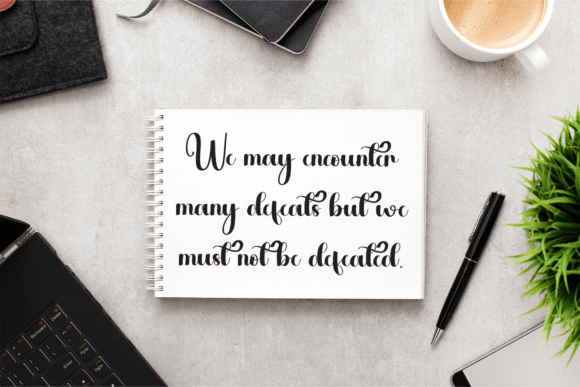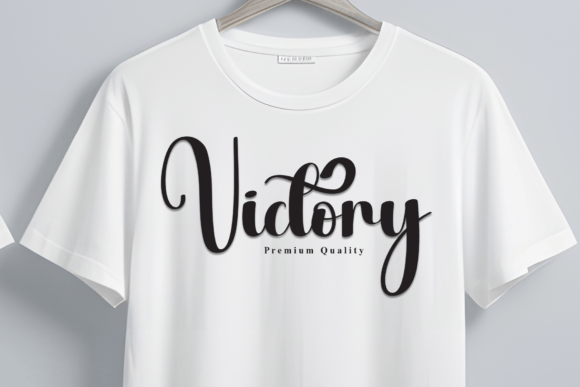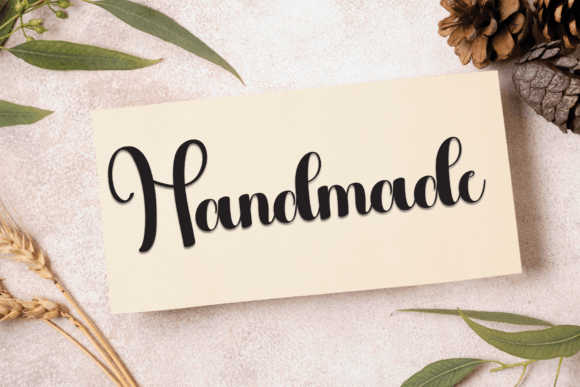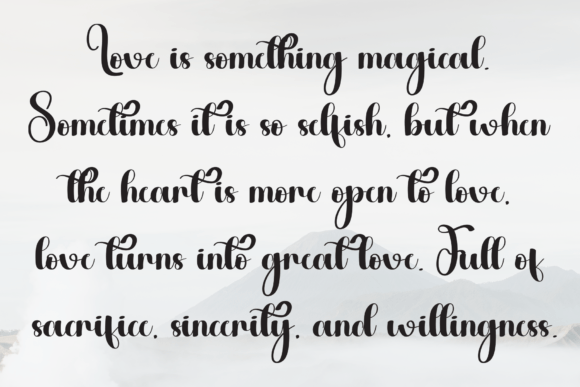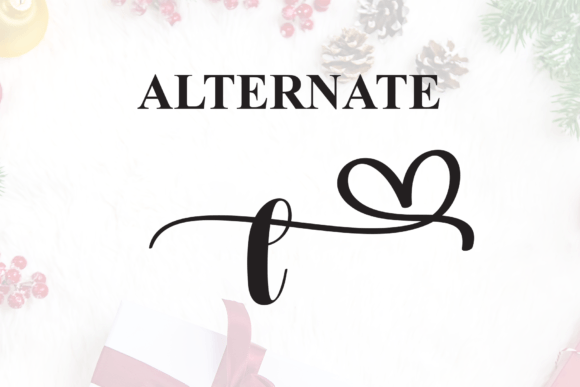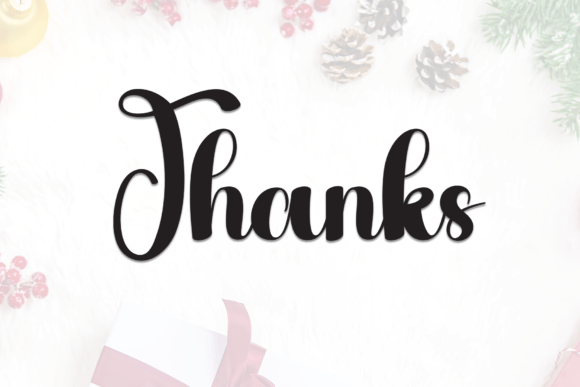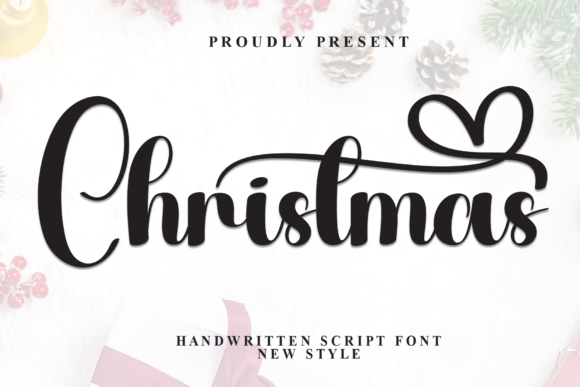
Introducing Christmas Font: A Charming Handwritten Display Font
Are you looking for a font that can add a touch of warmth and friendliness to your design projects? Look no further than Christmas Font, a charming and personable handwritten display font that exudes a sense of sweetness. This delightful font is perfect for crafting wedding invitations, greeting cards, or any other design project that requires a playful and fun vibe.
A Perfect Blend of Cute and Enjoyable
Christmas Font is designed to bring a unique touch to any layout. Its cute and enjoyable nature makes it an excellent choice for designers and crafters who want to convey warmth and friendliness in their design. Whether you’re creating a wedding invitation, a greeting card, or a social media post, this font is sure to make your design stand out.
Key Features of Christmas Font
- Handwritten Display Font: Christmas Font is a handwritten display font that is designed to add a personal touch to your design projects.
- Playful and Fun Vibe: This font has a playful and fun vibe that makes it perfect for crafting wedding invitations, greeting cards, and other design projects.
- Cute and Enjoyable Nature: Christmas Font has a cute and enjoyable nature that effortlessly adds a unique touch to any layout.
- Perfect for Designers and Crafters: This font is an excellent choice for designers and crafters who want to convey warmth and friendliness in their design.
Use Cases for Christmas Font
Christmas Font is a versatile font that can be used in a variety of design projects. Here are some use cases for this charming font:
- Wedding Invitations: Use Christmas Font to create beautiful and unique wedding invitations that will set the tone for the big day.
- Greeting Cards: This font is perfect for crafting greeting cards for special occasions such as Christmas, birthday, and anniversaries.
- Social Media Posts: Use Christmas Font to create engaging and fun social media posts that will grab the attention of your followers.
- Design Projects: This font can be used in a variety of design projects such as brochures, flyers, and posters.
Why Choose Christmas Font?
There are many reasons why you should choose Christmas Font for your design projects. Here are a few:
- Unique and Playful: Christmas Font is a unique and playful font that will add a touch of warmth and friendliness to your design projects.
- Easy to Read: This font is easy to read and understand, making it perfect for use in a variety of design projects.
- Versatile: Christmas Font is a versatile font that can be used in a variety of design projects.
Tips for Using Christmas Font
Here are a few tips for using Christmas Font in your design projects:
- Use it in Combination with Other Fonts: Use Christmas Font in combination with other fonts to create a unique and visually appealing design.
- Experiment with Different Sizes and Colors: Experiment with different sizes and colors to find the perfect combination for your design project.
- Use it to Add a Personal Touch: Use Christmas Font to add a personal touch to your design projects.
In conclusion, Christmas Font is a charming and personable handwritten display font that exudes a sense of sweetness. Its cute and enjoyable nature makes it an excellent choice for designers and crafters who want to convey warmth and friendliness in their design. With its playful and fun vibe, this font is perfect for crafting wedding invitations, greeting cards, and other design projects. So why wait? Download Christmas Font today and start creating beautiful and unique designs.